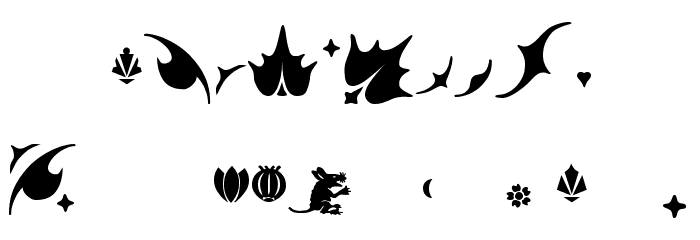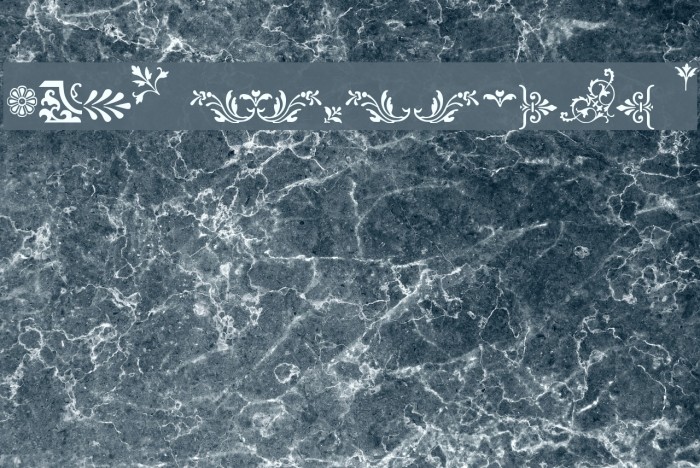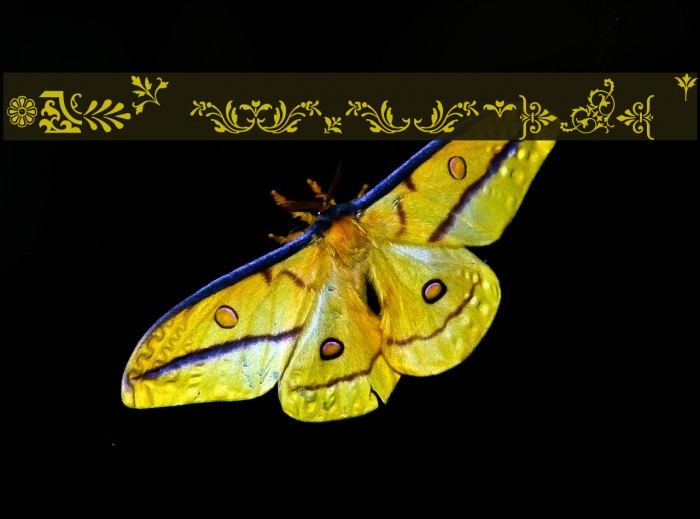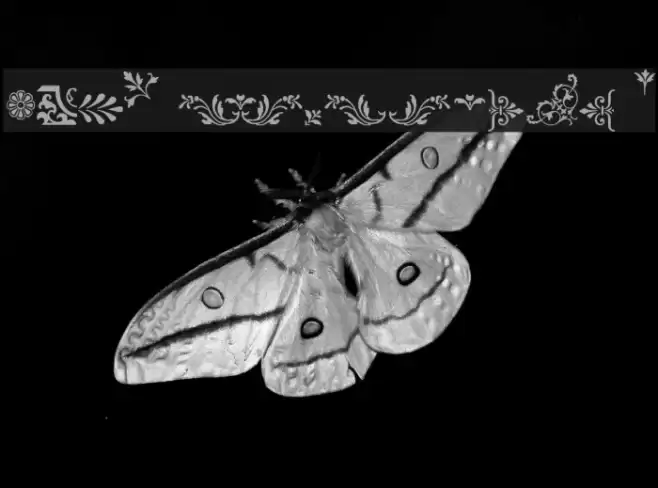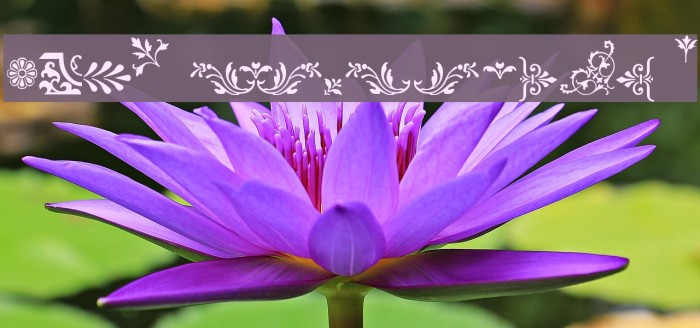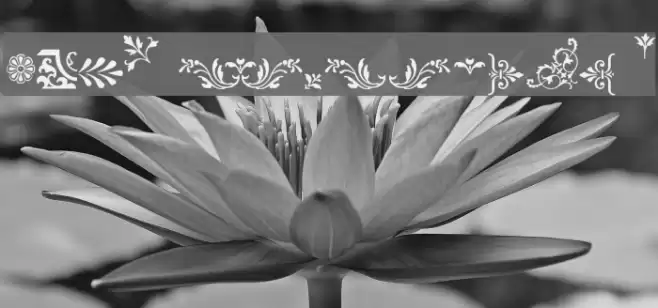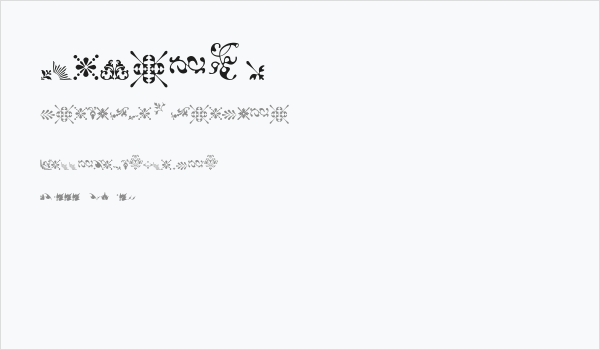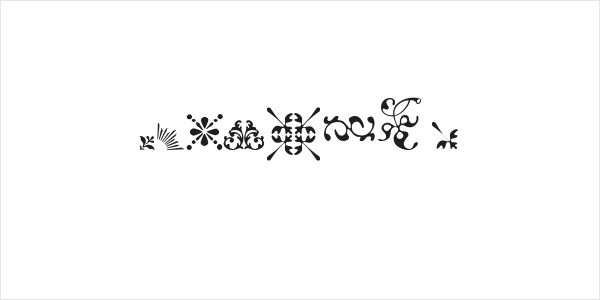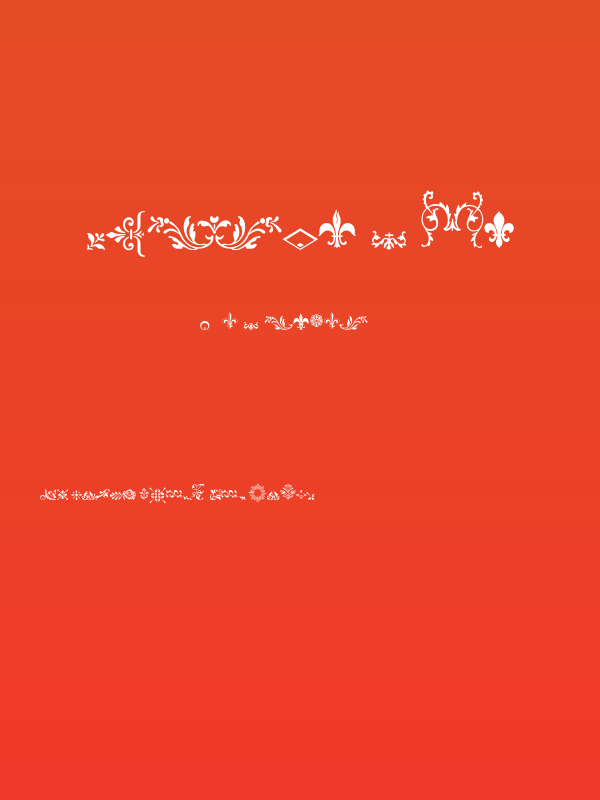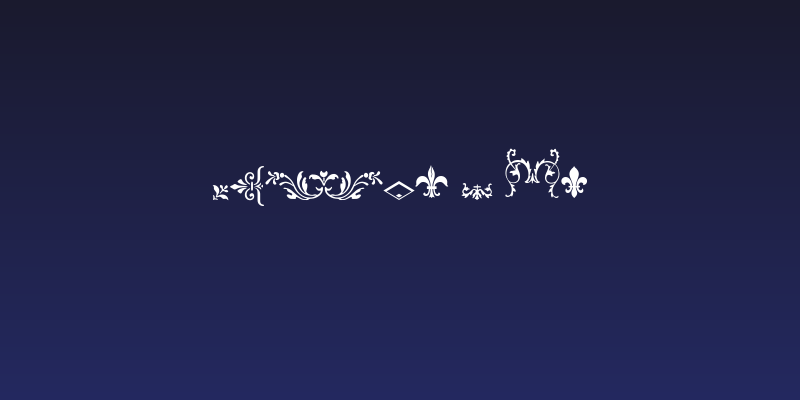
Fleurons Font
Fleurons Description
A decorative collection of ornamental glyphs and symbols inspired by floral, botanical, and heraldic motifs, featuring intricate swirls, flourishes, fleurons, and various embellishments commonly used as typographic ornaments or borders.
| Overall Style | Vintage, Ornamental, Decorative |
| Use Case | Borders, Dividers, Decorative accents, Logos |
| Proposed Projects | Invitations, certificates, book covers, decorative borders, vintage packaging, wedding stationery, ornamental dividers. |